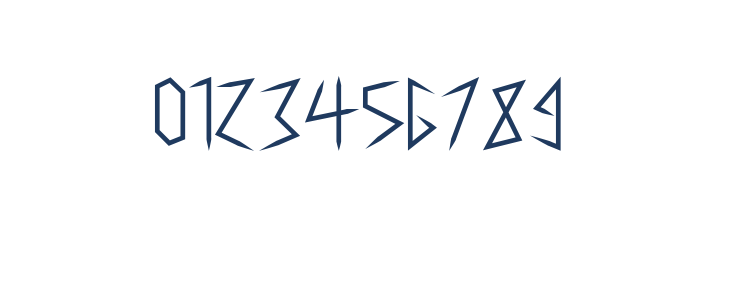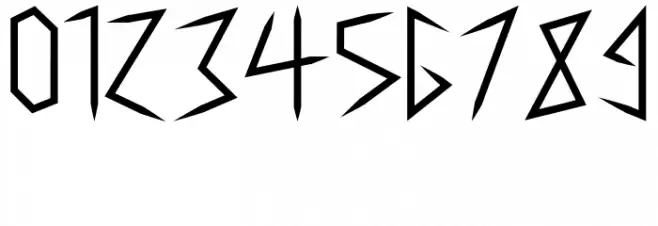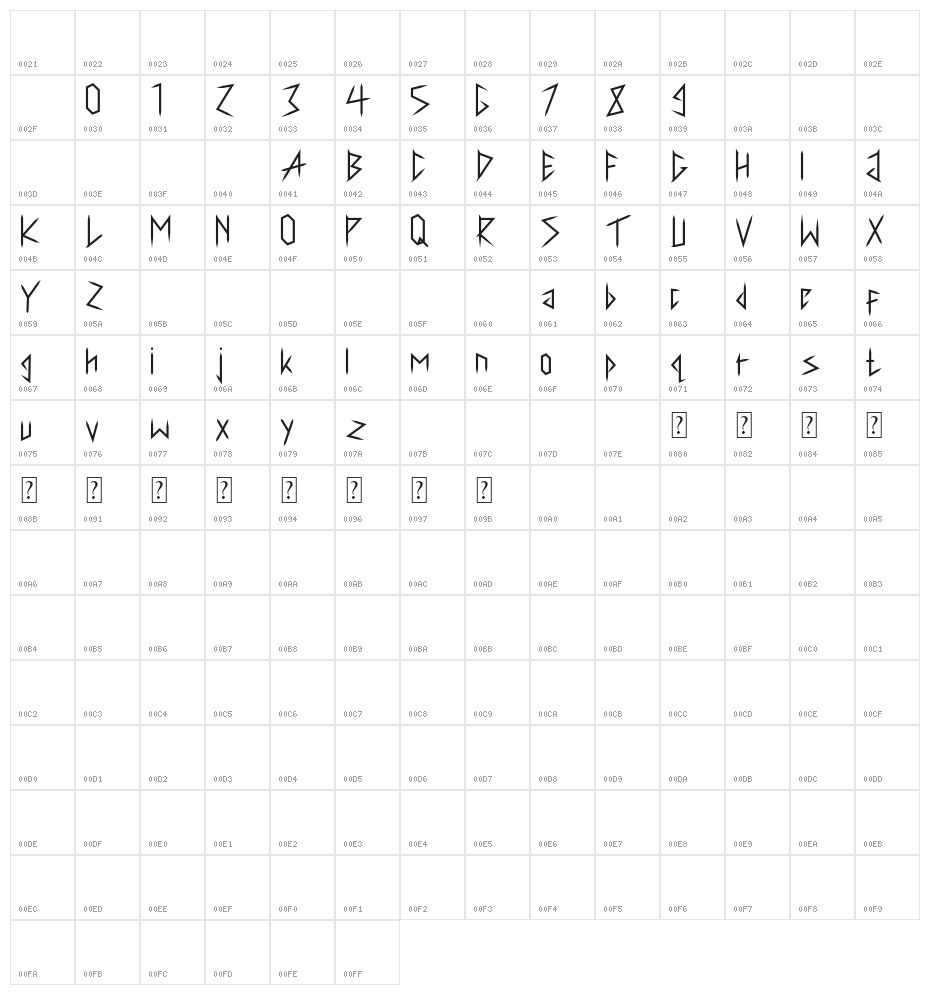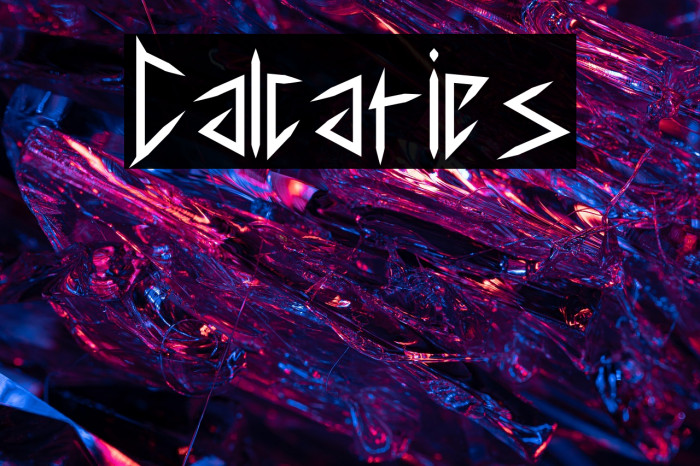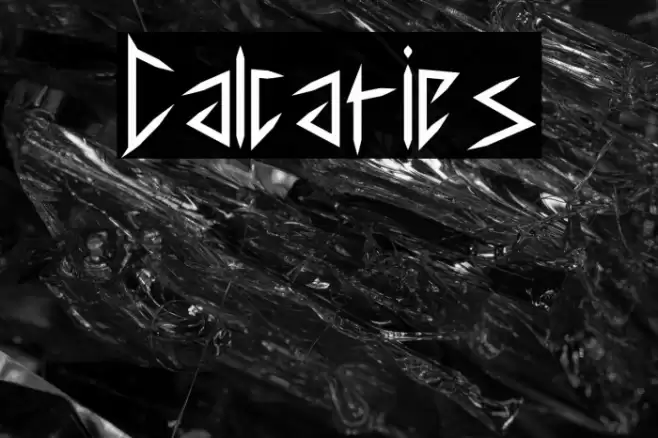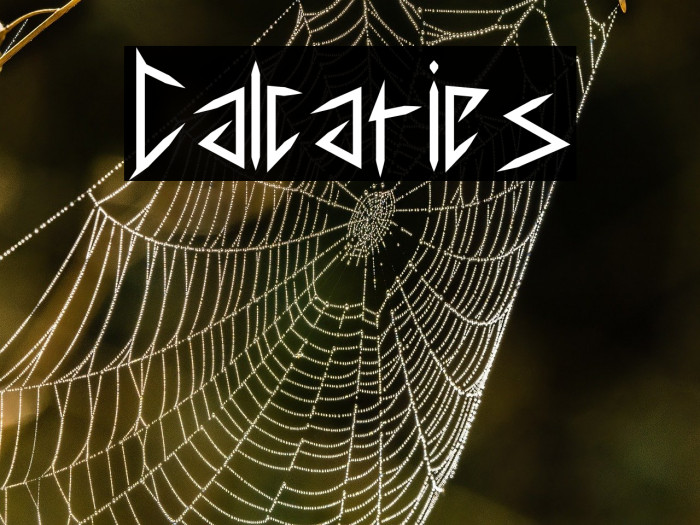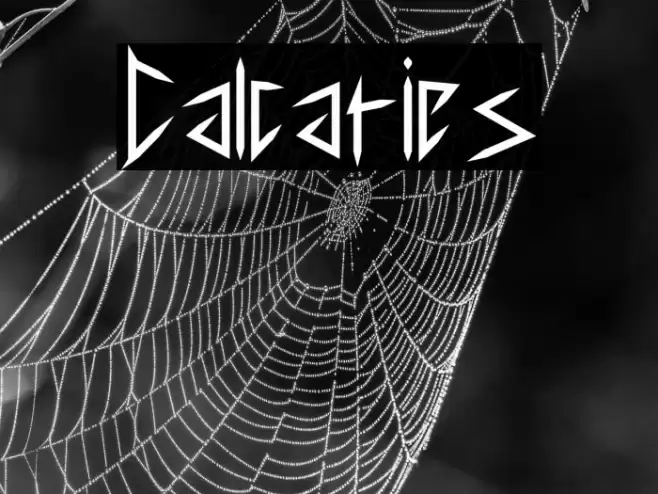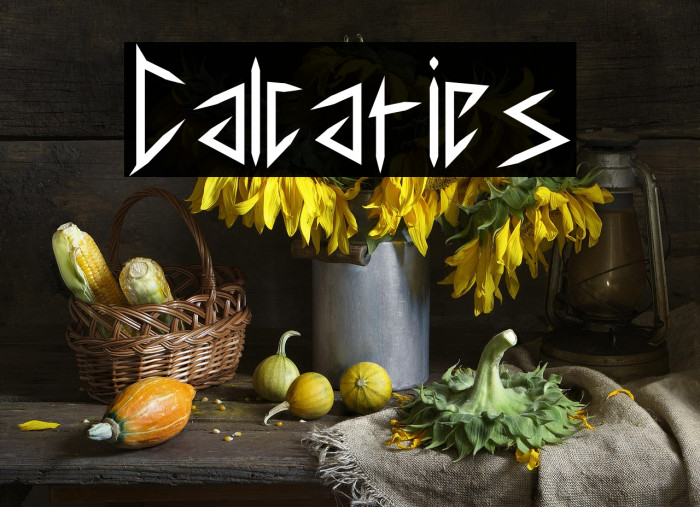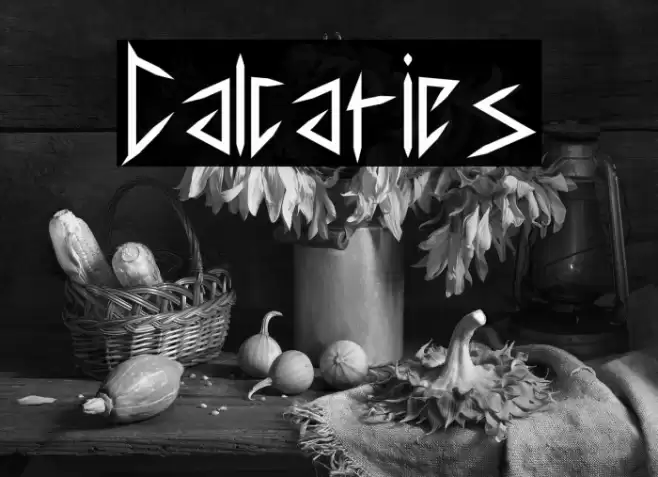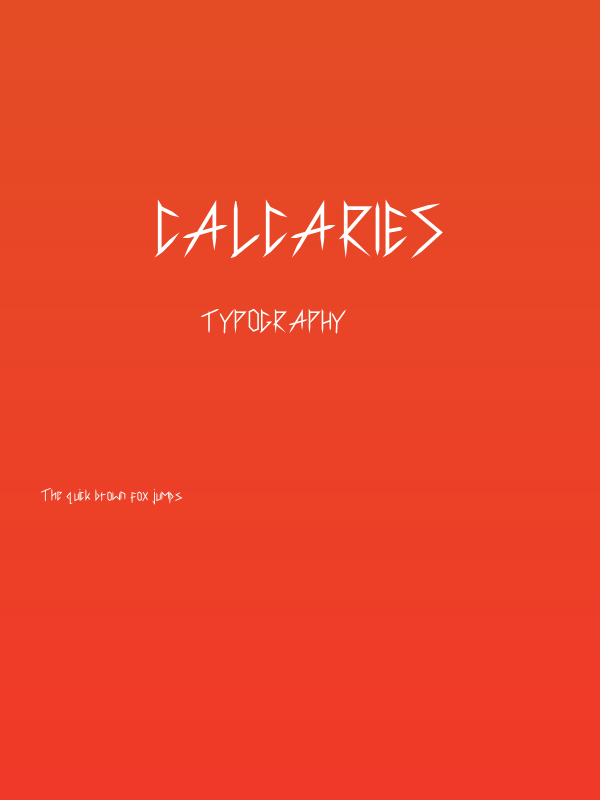
Calcaries Font
Calcaries Description
This font features a bold and edgy design with sharp, angular lines that create a striking and dynamic appearance. The characters are crafted with a sense of movement and energy, making them stand out with their unique geometric style. The uppercase and lowercase letters maintain a consistent angular theme, while the numbers and special characters follow suit, ensuring a cohesive look across all elements. The font's design is reminiscent of a modern, futuristic aesthetic, suitable for projects that require a bold statement.
| Proposed Projects | Ideal for music album covers, video game titles, posters, and branding that seeks a futuristic or rebellious vibe. |